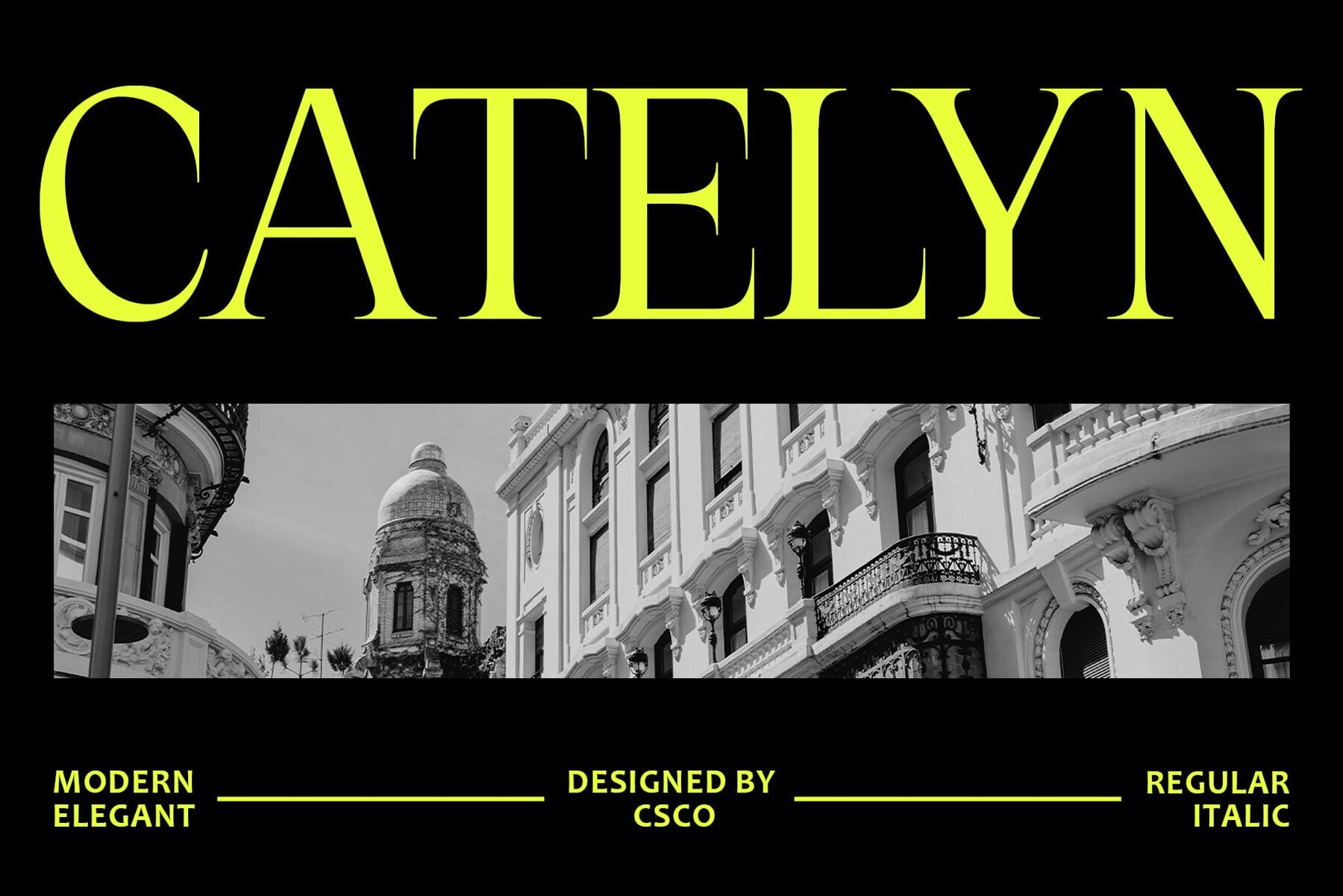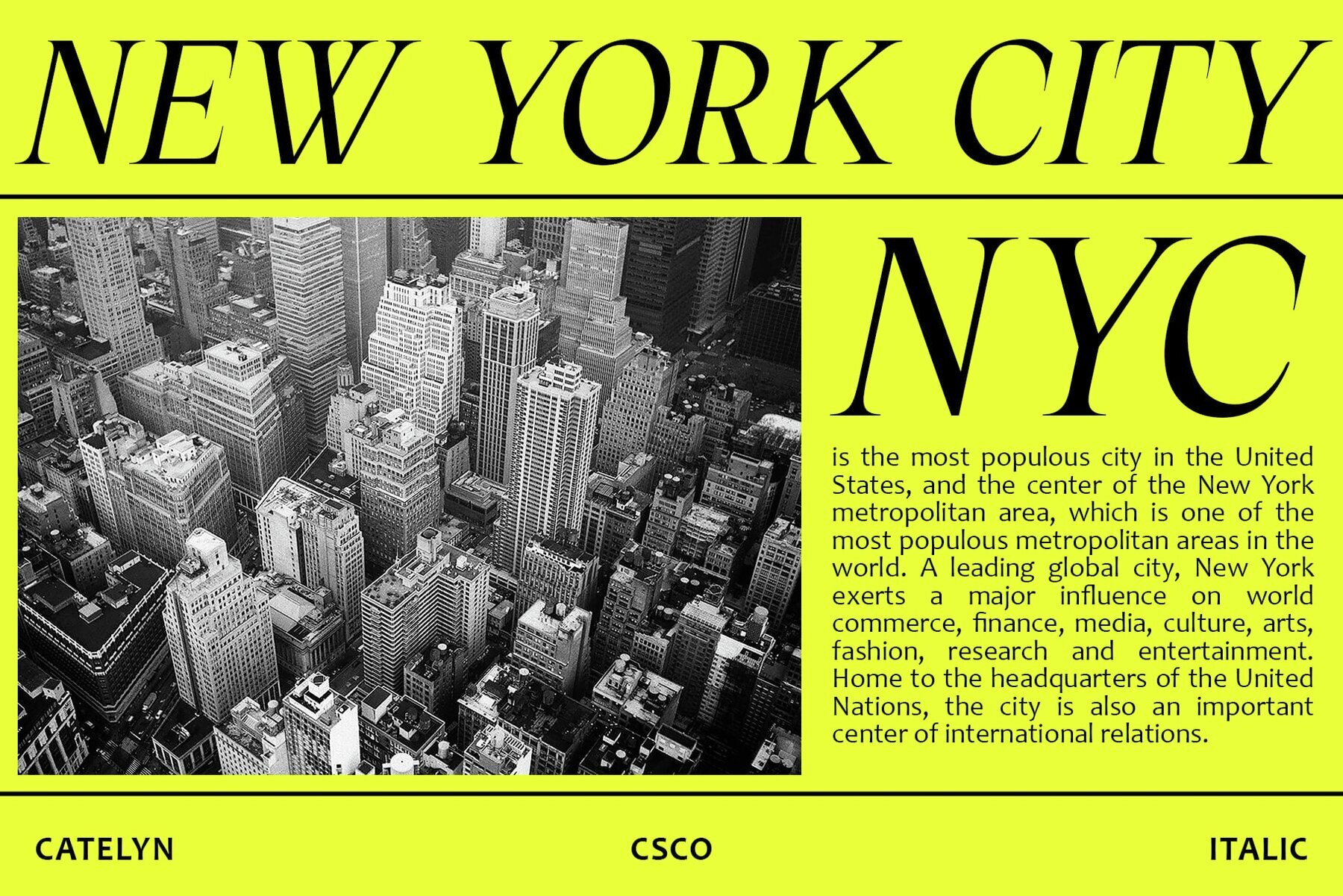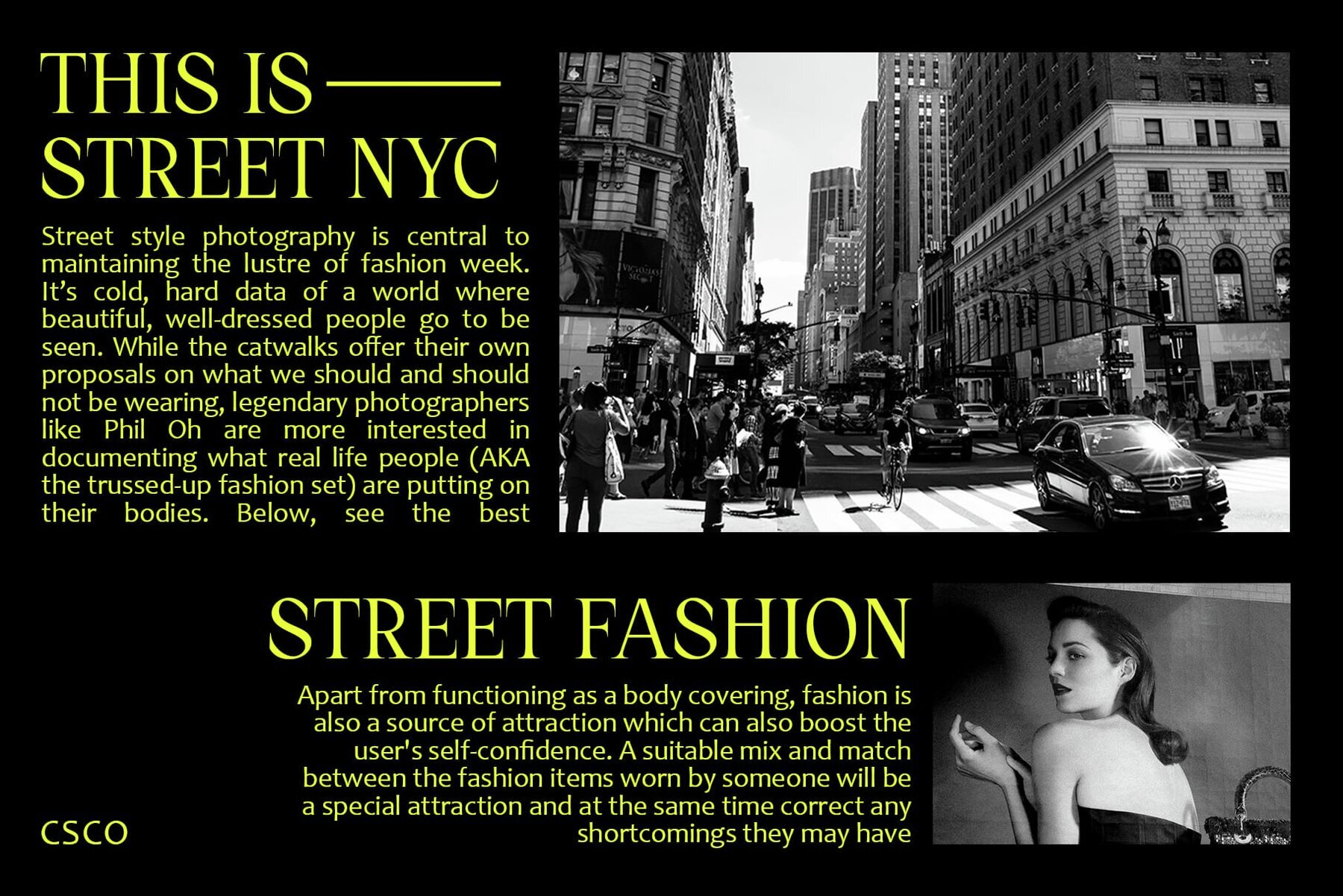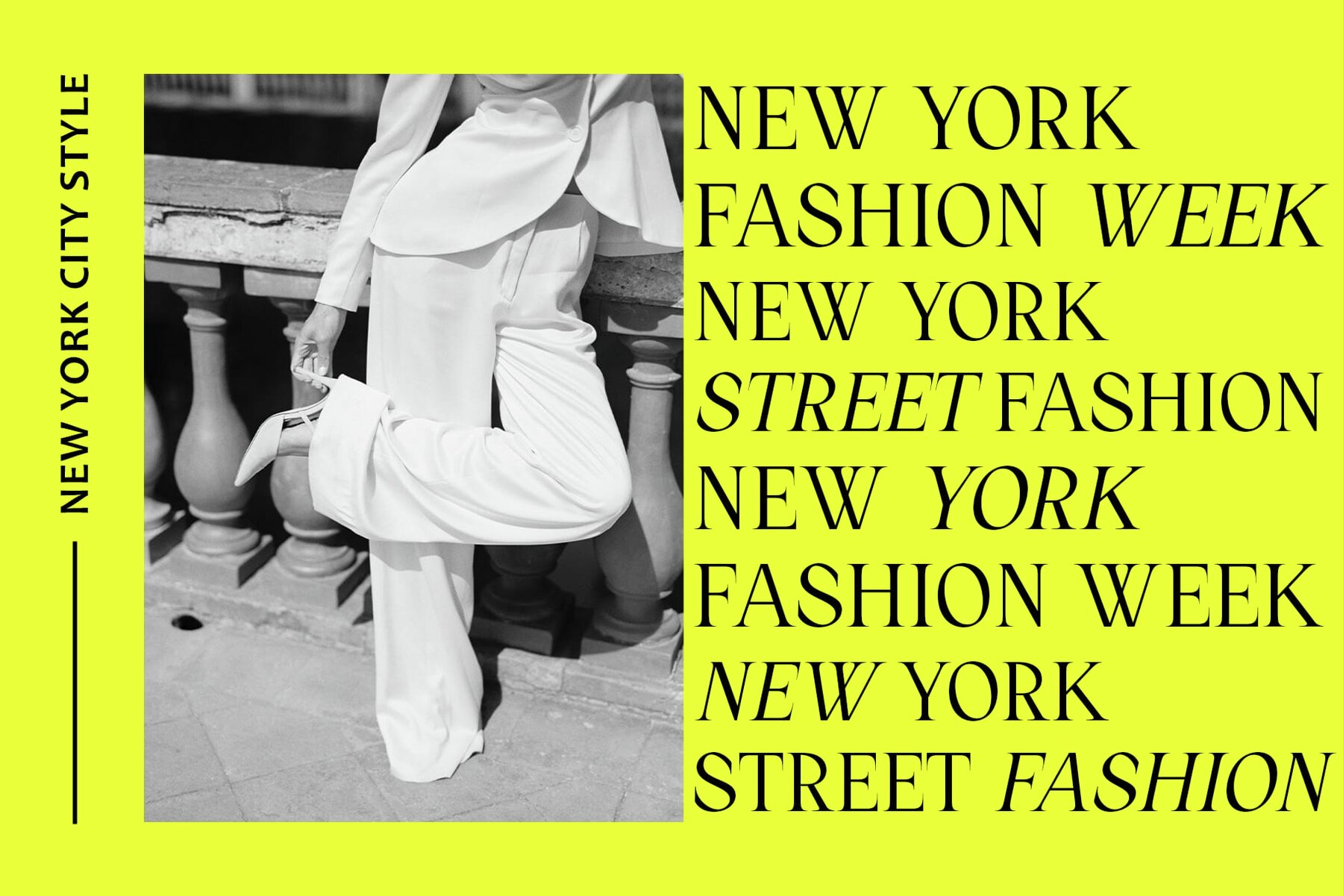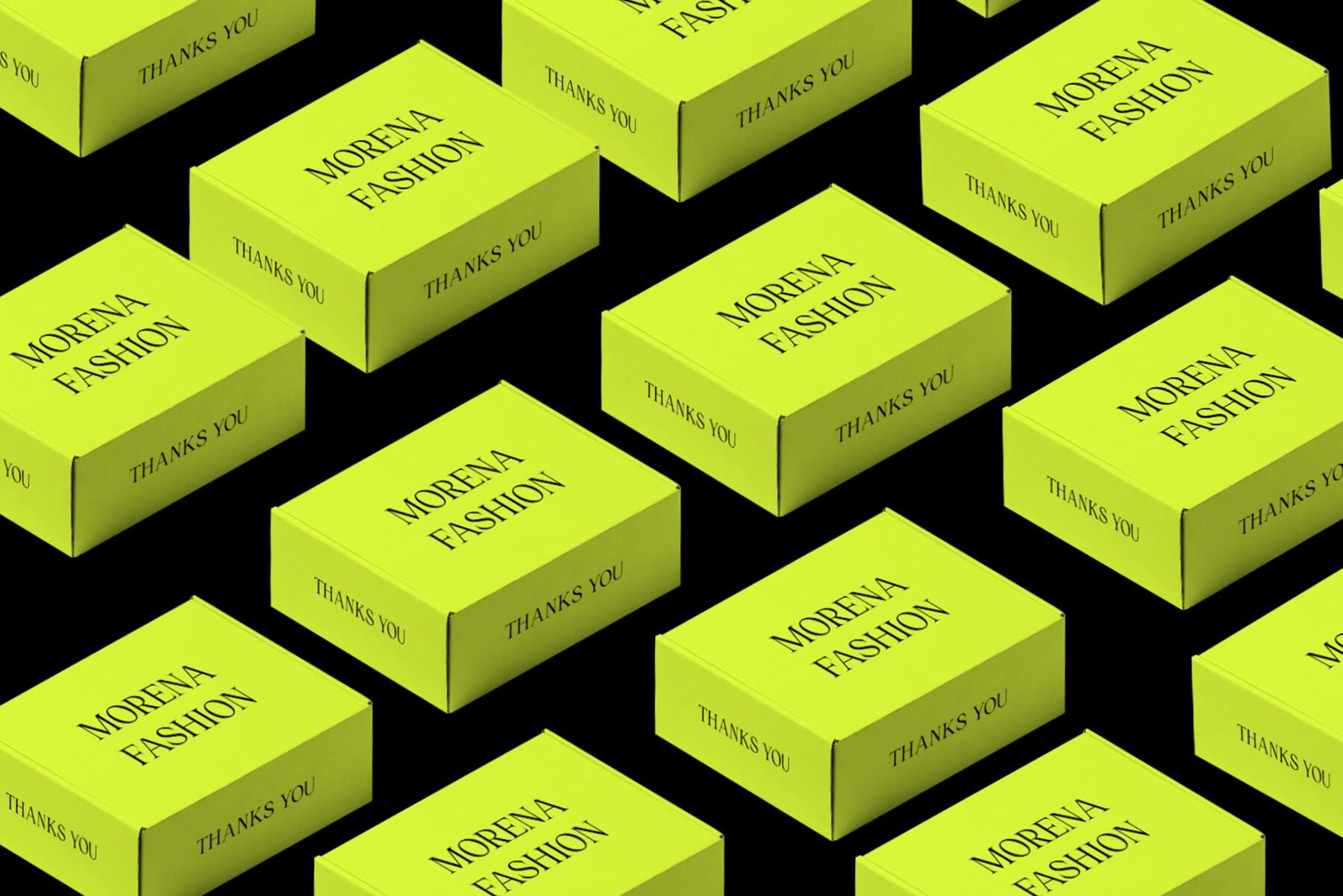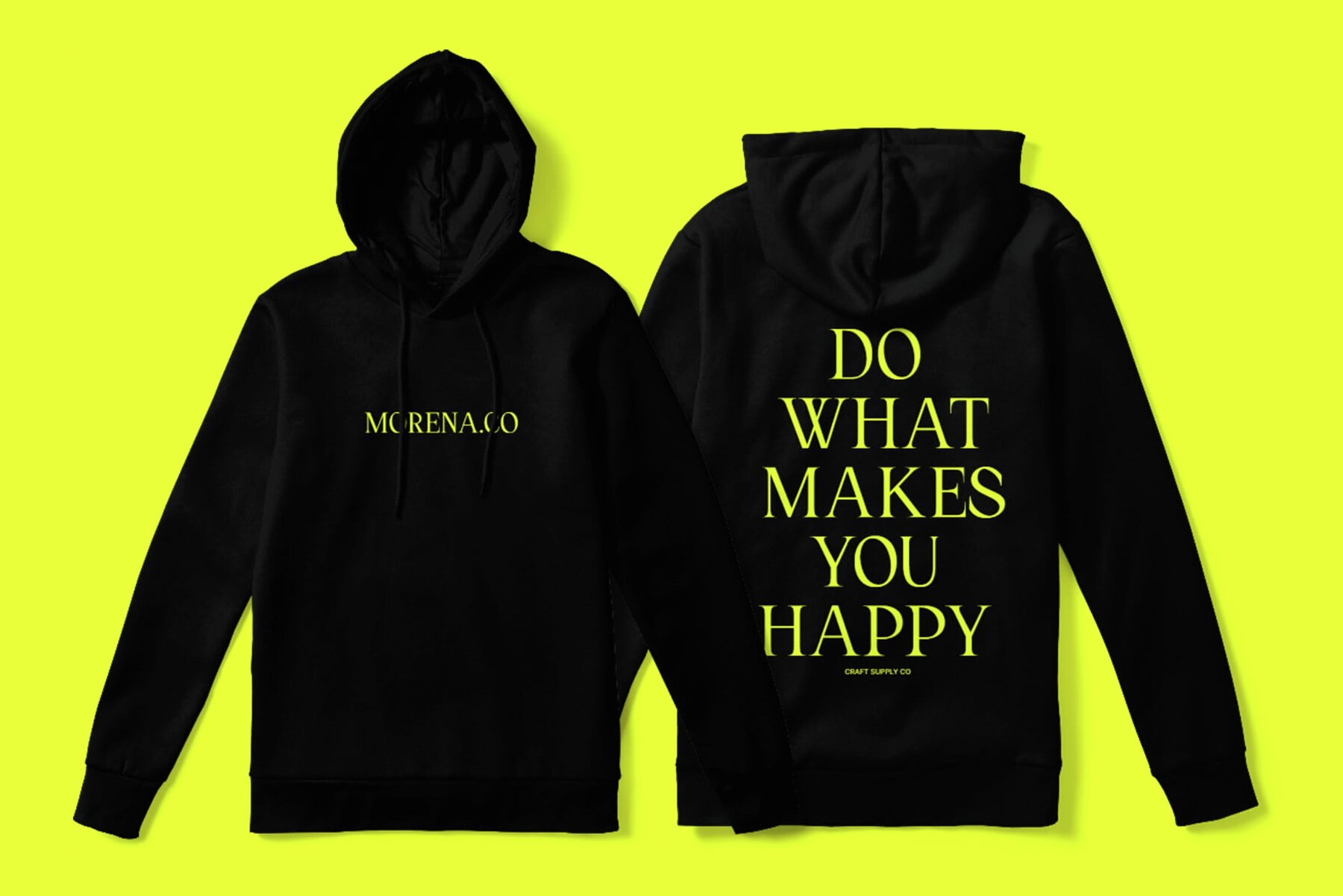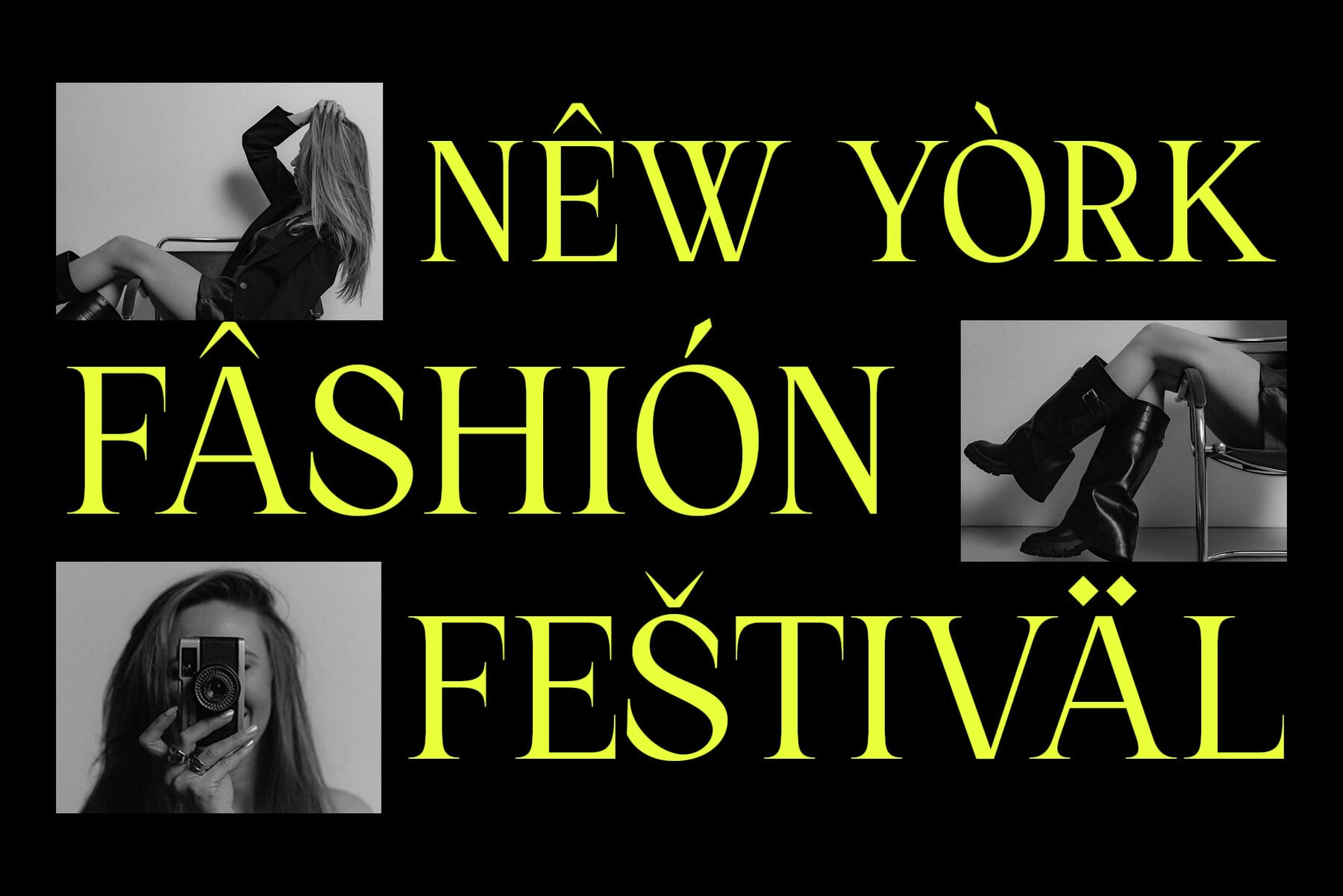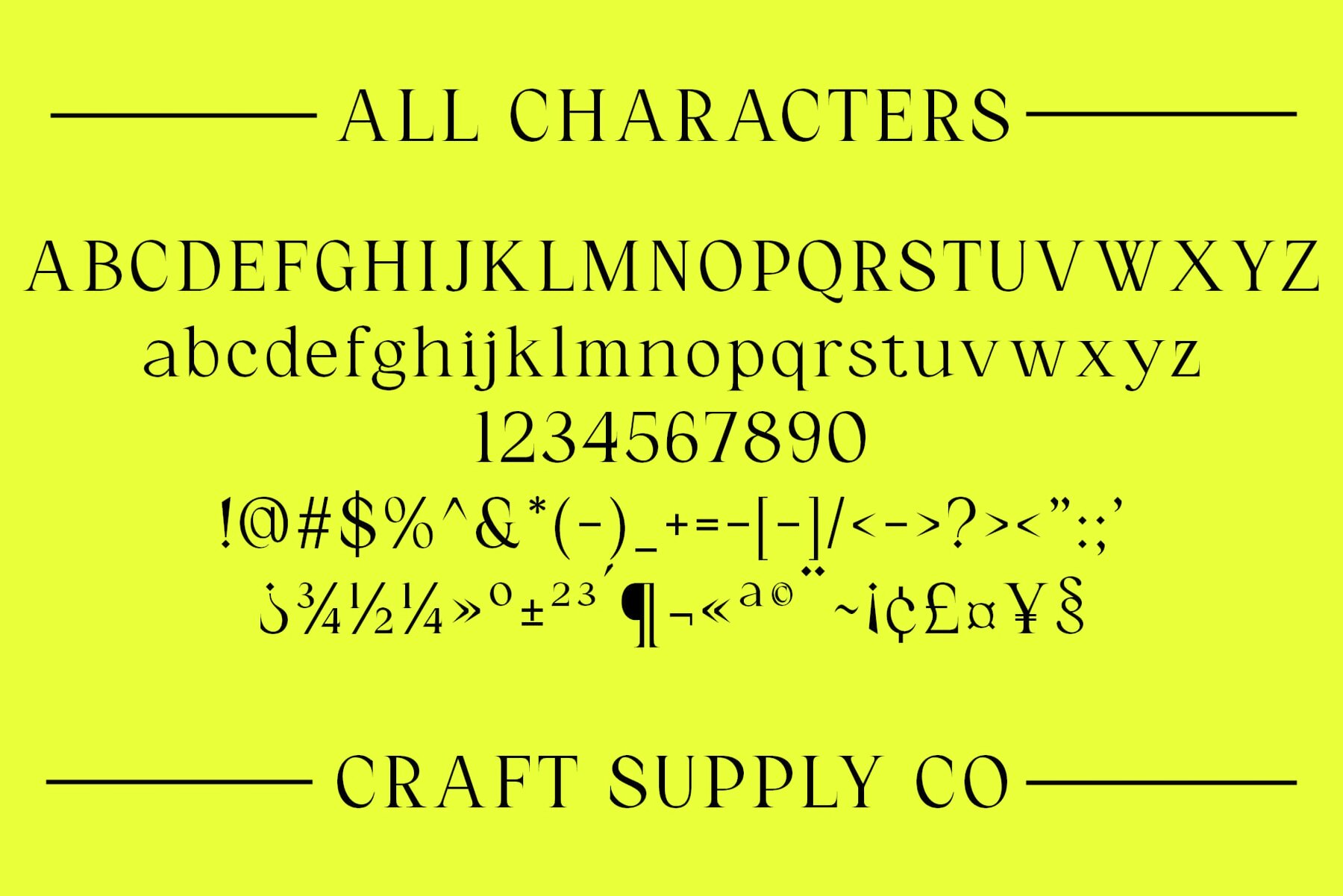
Catelyn is a serif font that stands out with its sharp edges and high contrast, offering a distinct visual appeal. Its elegance and uniqueness make it a preferred choice for projects requiring sophistication and style. Featuring pointed serifs, Catelyn delivers a unique and distinguished appearance. The combination of sharp edges and high contrast heightens its visual impact, providing a compelling alternative to traditional serif fonts. Catelyn exudes elegance, thanks to its meticulously crafted design. The font's sharp serifs and high contrast contribute to its sophisticated aesthetic, making it ideal for projects that necessitate a touch of class. This font embodies character and charm with its sharp serifs and pronounced contrast. Its distinct appearance adds personality to any text, capturing the viewer's attention and leaving a lasting impression. While maintaining an elegant disposition, Catelyn proves versatile across various applications. Suitable for branding, editorial design, or invitations, its sharp serifs and high contrast ensure readability and visual appeal in multiple mediums. Catelyn shines as a font that merges elegance with character. Its sharp serifs, high contrast, and versatile nature make it a go-to choice for projects demanding sophistication and impact. Enhance your designs with Catelyn’s timeless allure. Use this typeface effortlessly without needing specialized software. If you have any inquiries or need assistance, please feel free to contact us. We appreciate your support in enhancing your creative projects!Catelyn Font: Exuding Elegance and Character
Sharp Serifs for Distinctiveness
Elegance in Every Stroke
Character and Charm
Versatility in Application
Elegance Meets Character